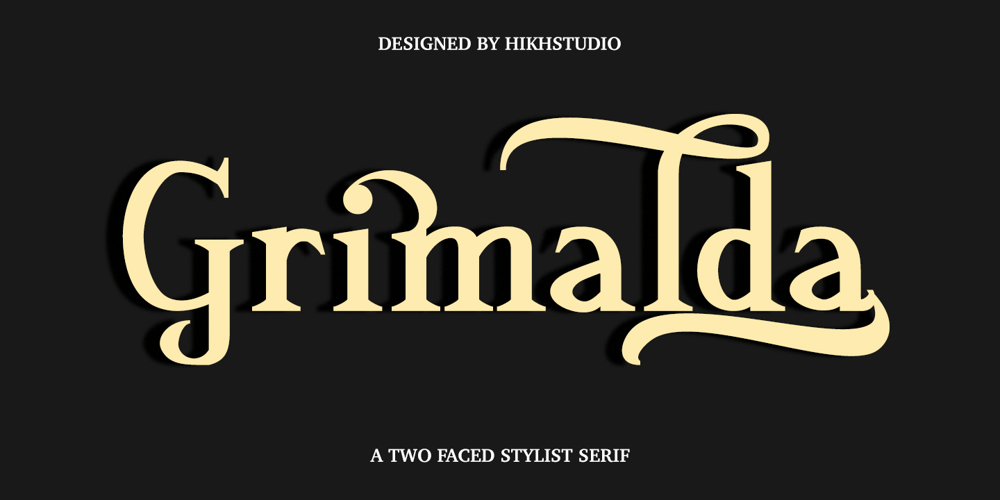
Grimalda Font Family was designed by Hajid Hikmatiyar and published by Hikhcreative. Grimalda contains 1 styles and family package options. Grimalda is an elegant serif typeface with taste of modern and simplicity. It is perfectly for magazine cover, headline, wedding invitations, logo, brand, and many more. Grimalda have more than 100 characters of ligatures and alternates. You can create any imagination with this serif font.What’s included?- Uppercase & Lowercase Characters- Multilingual support- Ligatures & Alternates Characters